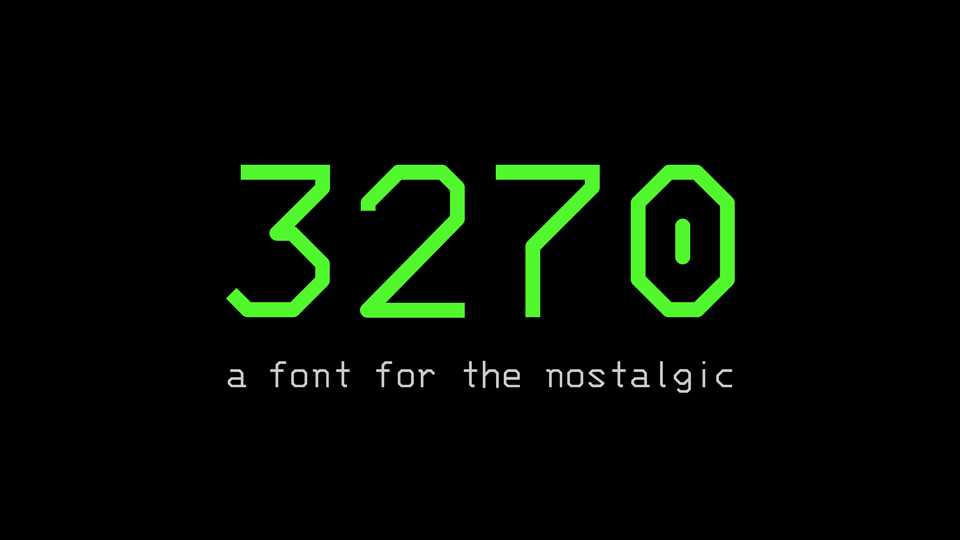
Download 3270 font, a display typeface derived from the x3270 font, which, in turn, was translated from the one in Georgia Tech’s 3270tool, which was itself hand-copied from a 3270 series terminal.